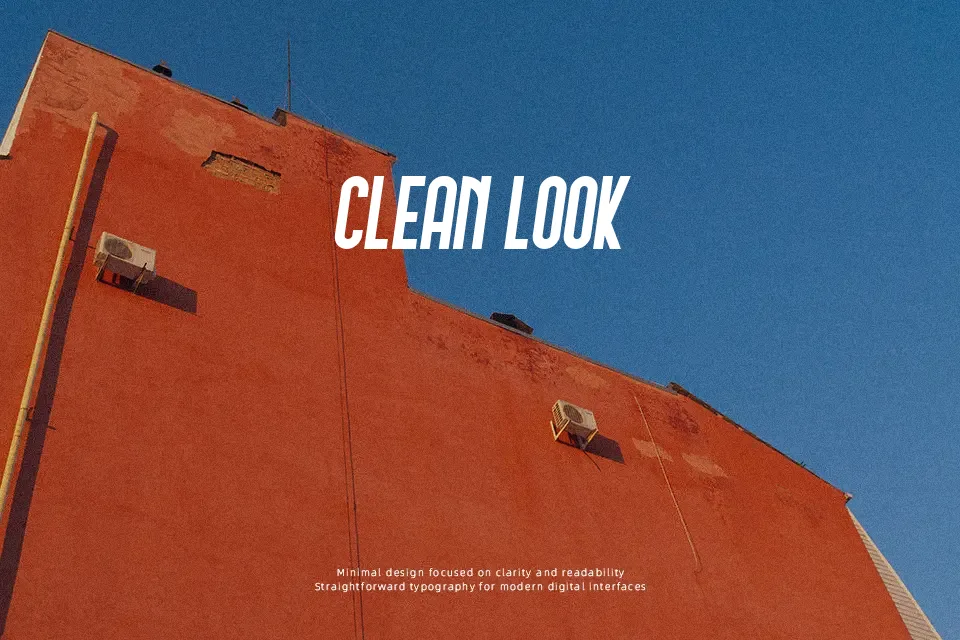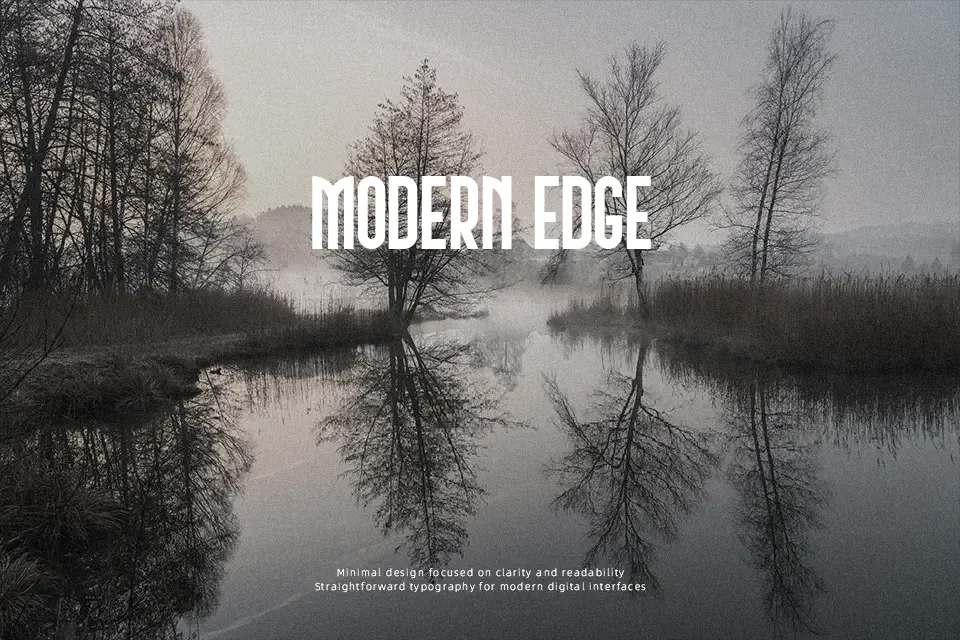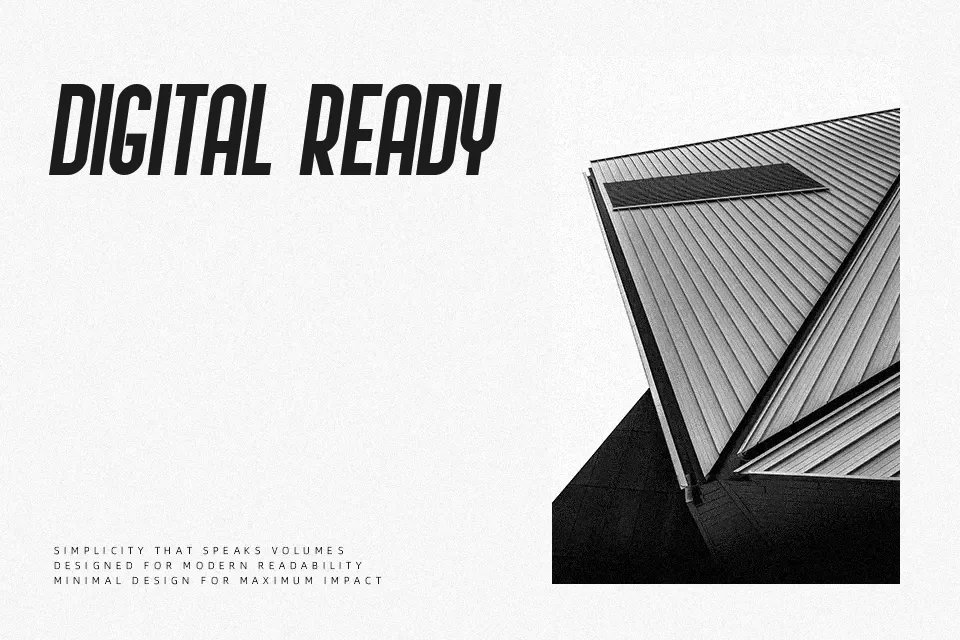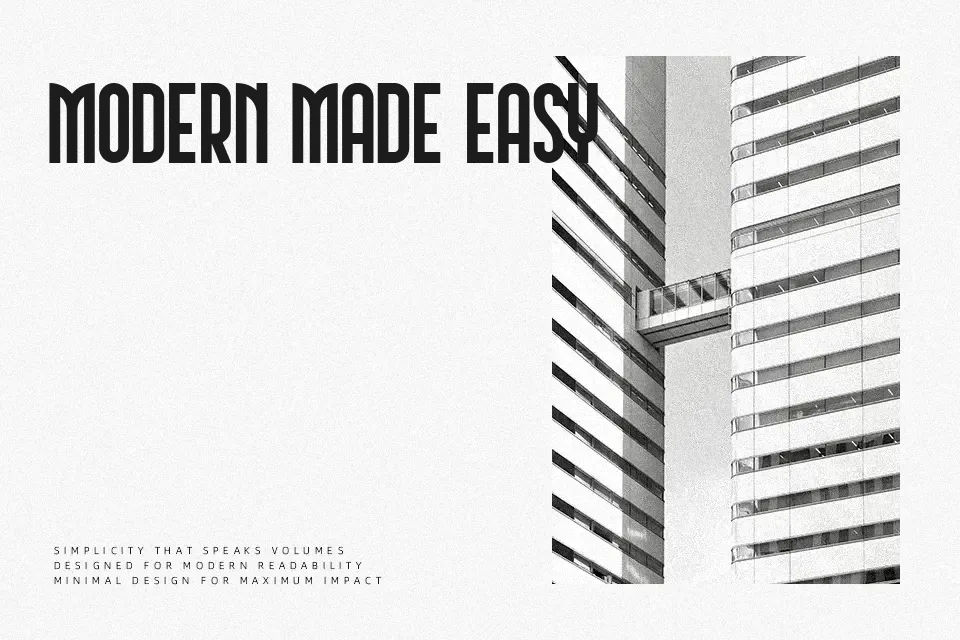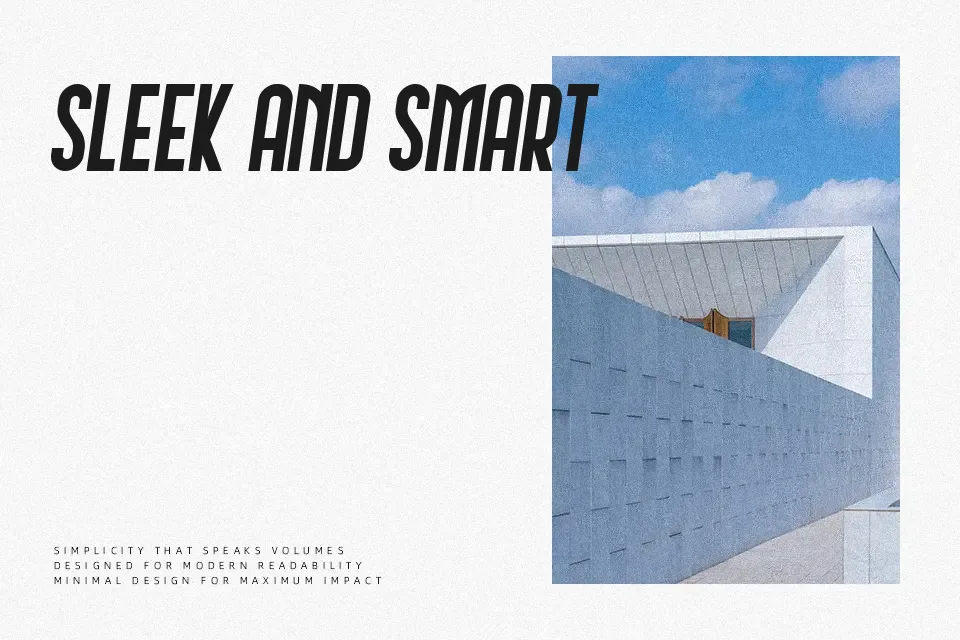
Schwarzenberg Font
Schwarzenberg Font features an elongated vertical construction characterized by narrow letterforms, consistent stroke weights, and tight character spacing. The typeface draws inspiration from vintage industrial signage, presenting solid horizontal bars and disciplined angles that maintain strong aesthetic cohesion. In large headline applications and bold product labels, the design produces an assertive typographic presence that catches immediate attention. However, the compact spacing and narrow glyph width reduce legibility in extended text settings, making the letterforms less suitable for dense body paragraphs or small mobile captions. The disciplined geometry maintains dependable clarity when set as prominent display titles across editorial covers and poster layouts.
vintage poster headlines, retro product packaging, editorial title cards, apparel graphics
long paragraph text, dense mobile interface copy, spreadsheet data, small caption text
Perfect for headline, logo, and packaging, with a bold and condensed style.